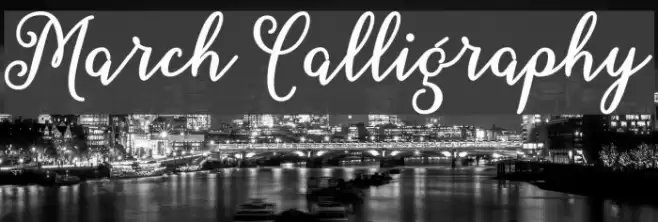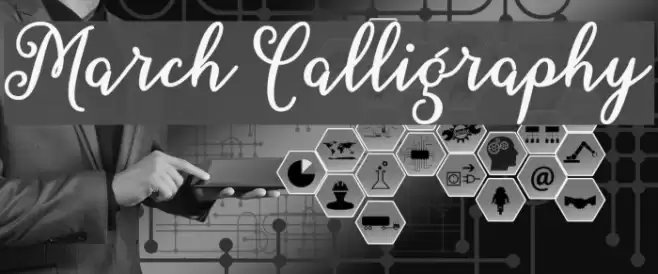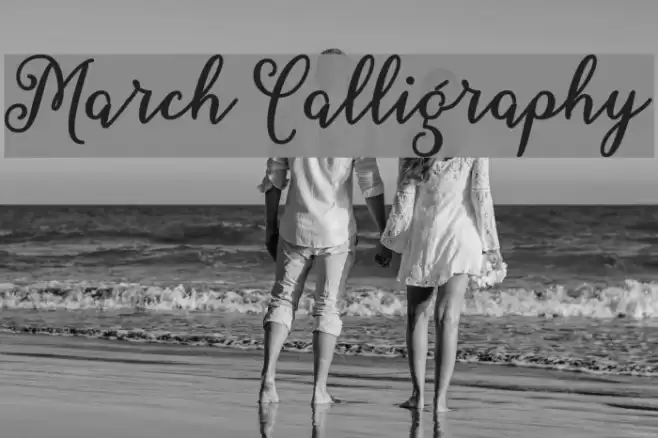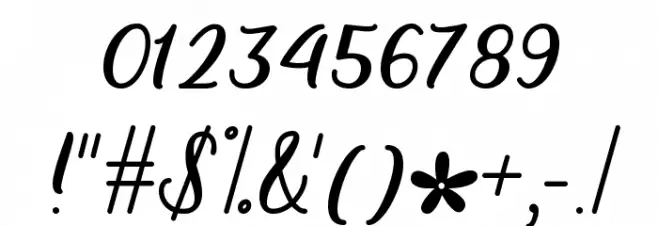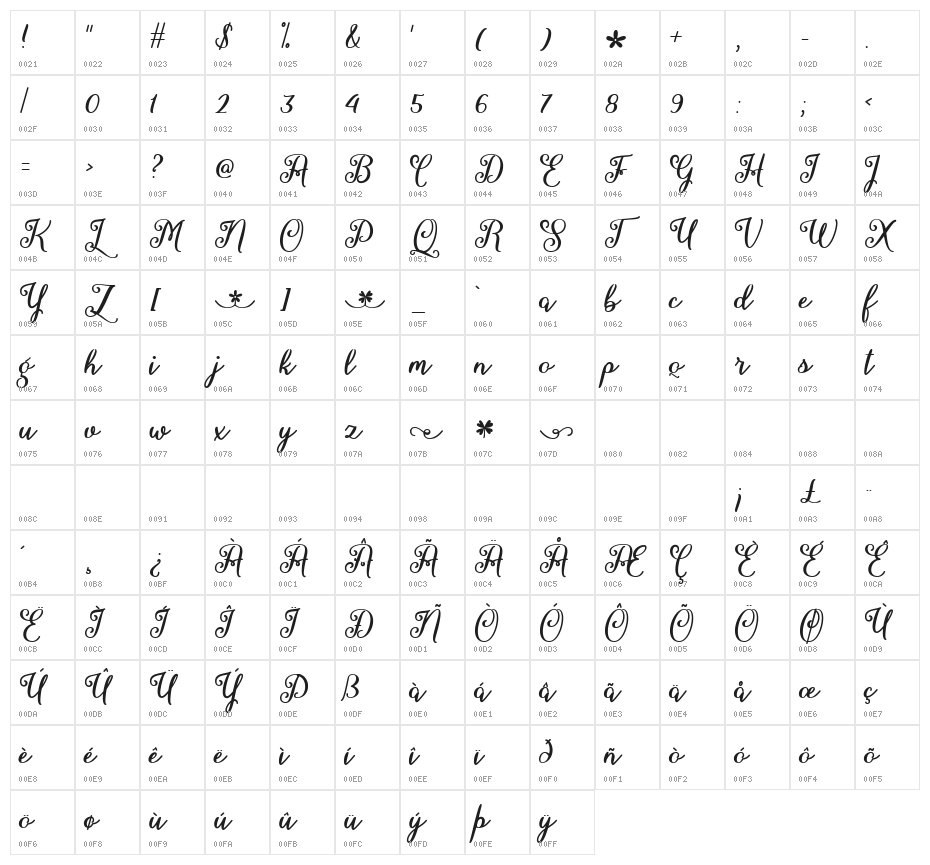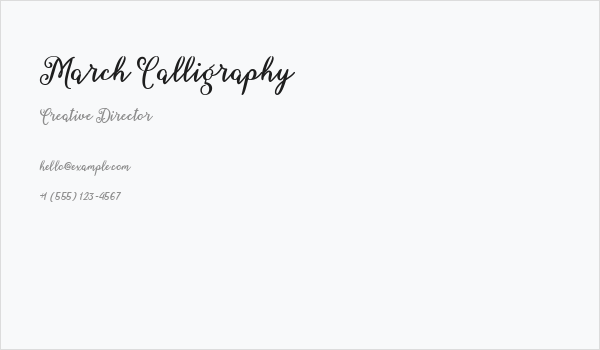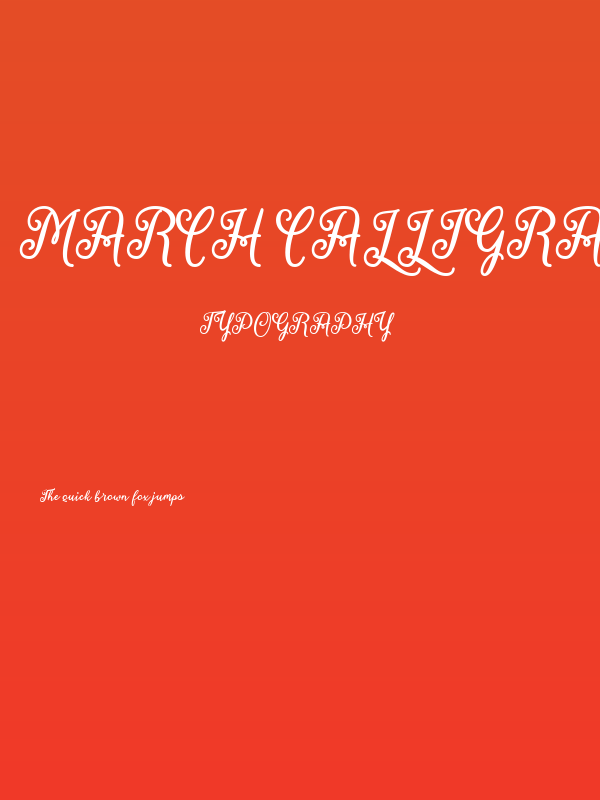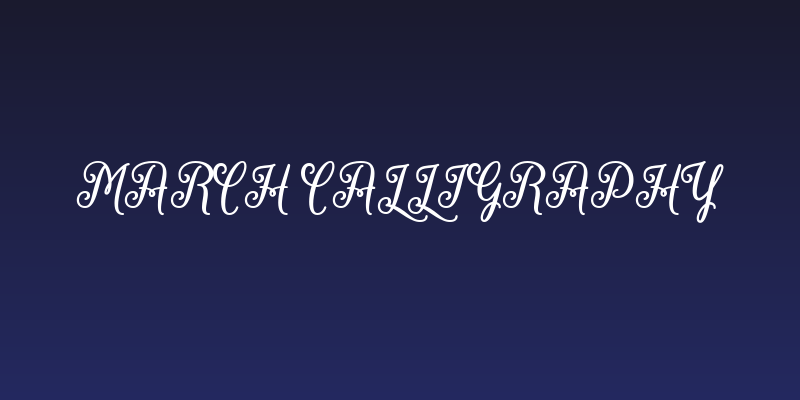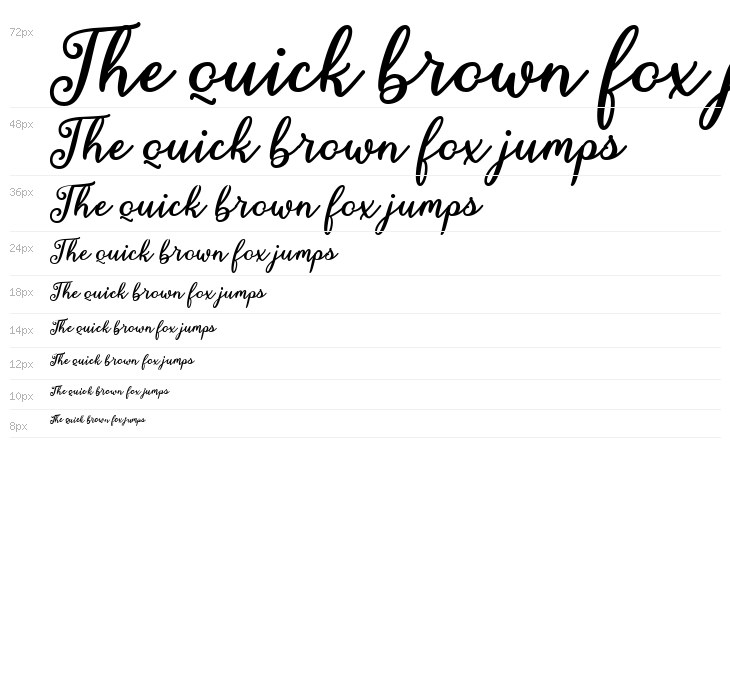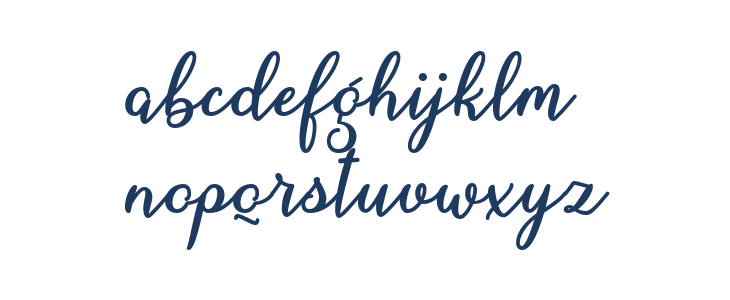
March Calligraphy Font
March Calligraphy Description
This font exhibits a graceful and elegant calligraphic style, characterized by its flowing and interconnected letterforms. The uppercase letters feature intricate loops and swashes, adding a touch of sophistication and flair. The lowercase letters maintain a smooth and fluid appearance, with consistent stroke widths that enhance readability while preserving the artistic quality. The numerals are designed to complement the overall aesthetic, maintaining the same fluidity and elegance. Special characters are thoughtfully integrated, ensuring versatility in various design contexts. This font is perfect for projects that require a touch of elegance and artistic expression.
A graceful calligraphic font with elegant loops and fluid strokes from Uncategorized fonts.
- Proposed Projects: Ideal for wedding invitations, elegant branding, greeting cards, and decorative posters.
- Overall Style: Elegant
- Use Case: Logos, Invitations, Decorative text